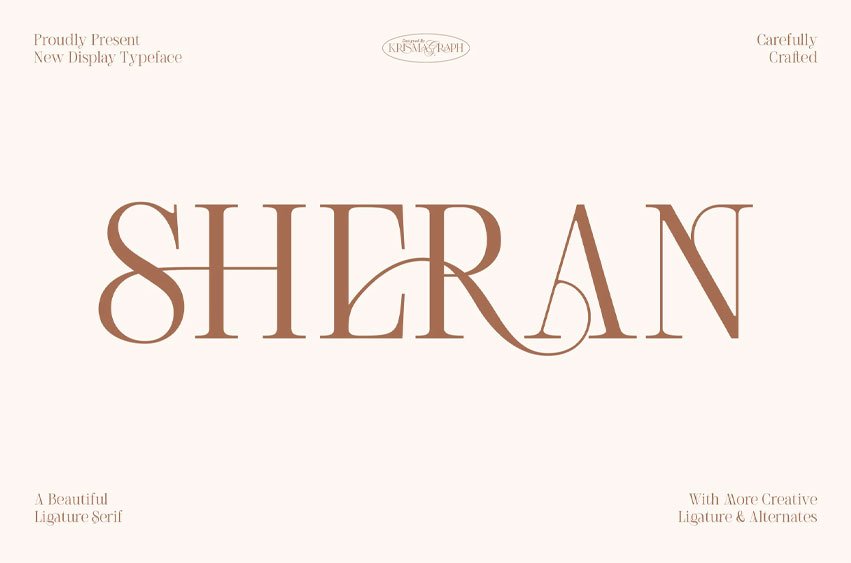
Sheran Font is perfect for logos & quotes, posters & branding, website headlines, newsletters & more! It includes over 58 ligatures and some chic alternate letters. The font also includes full language support, punctuation & numerals. So you can combine it to get the look you want!
- 58 ligatures and alternate letters
- Language Support